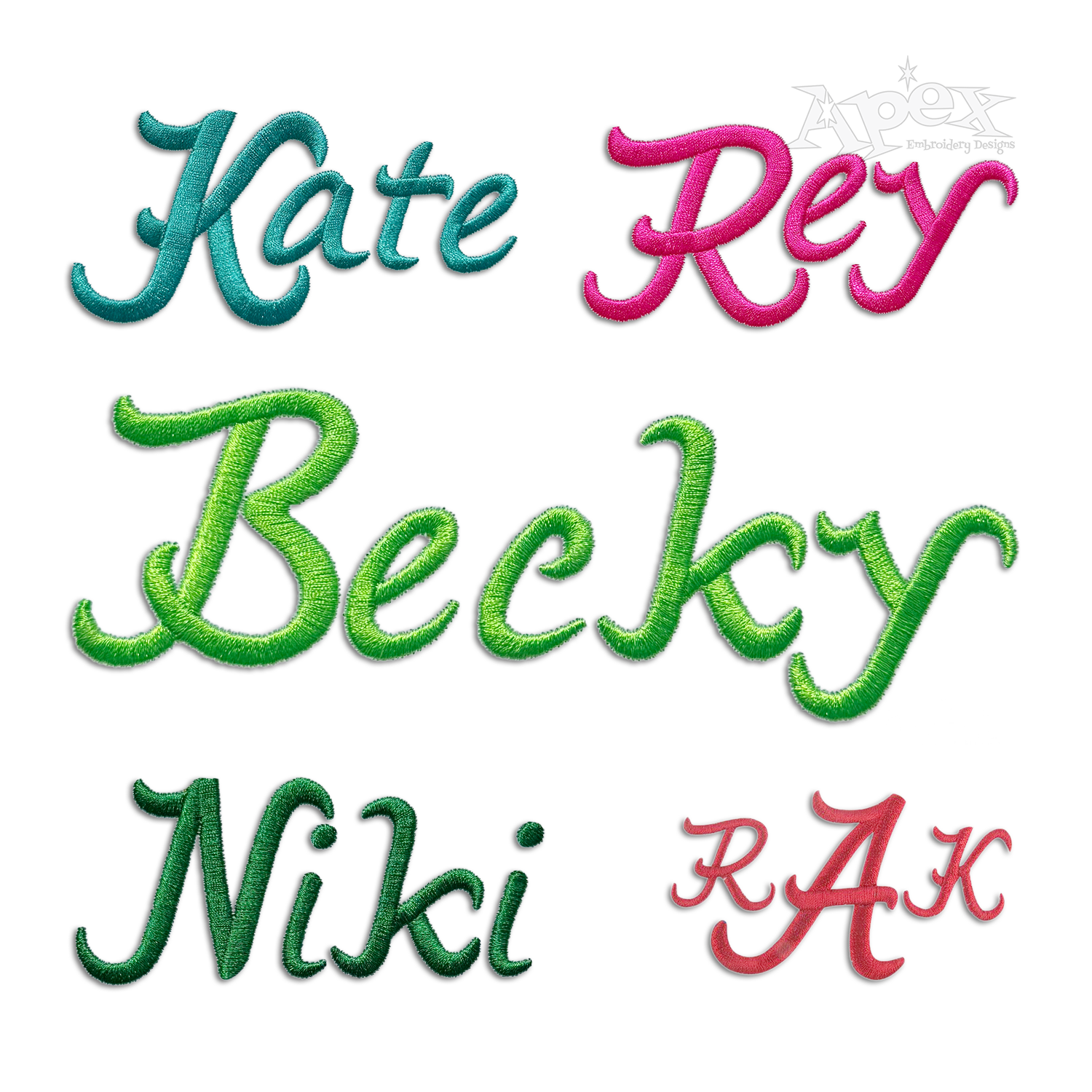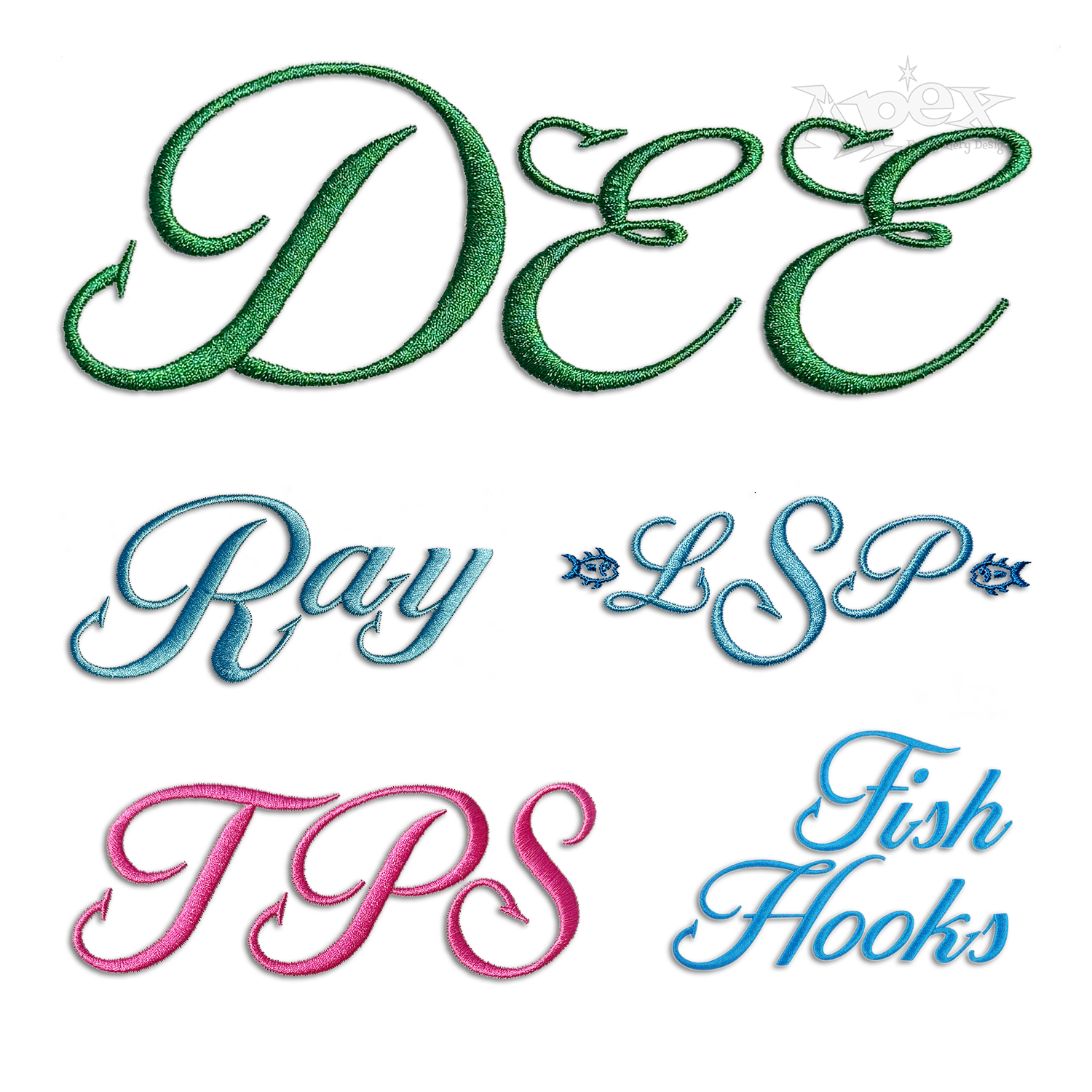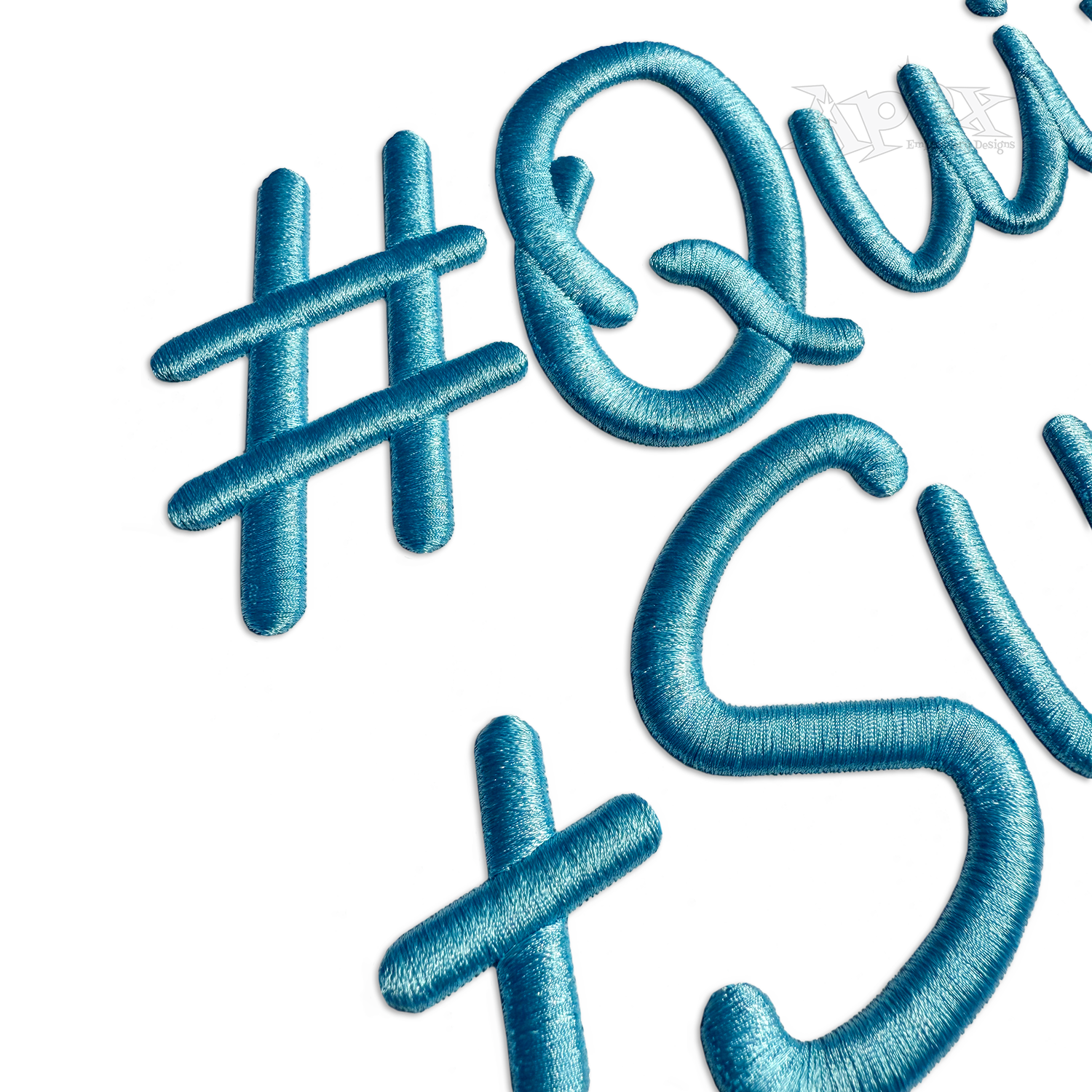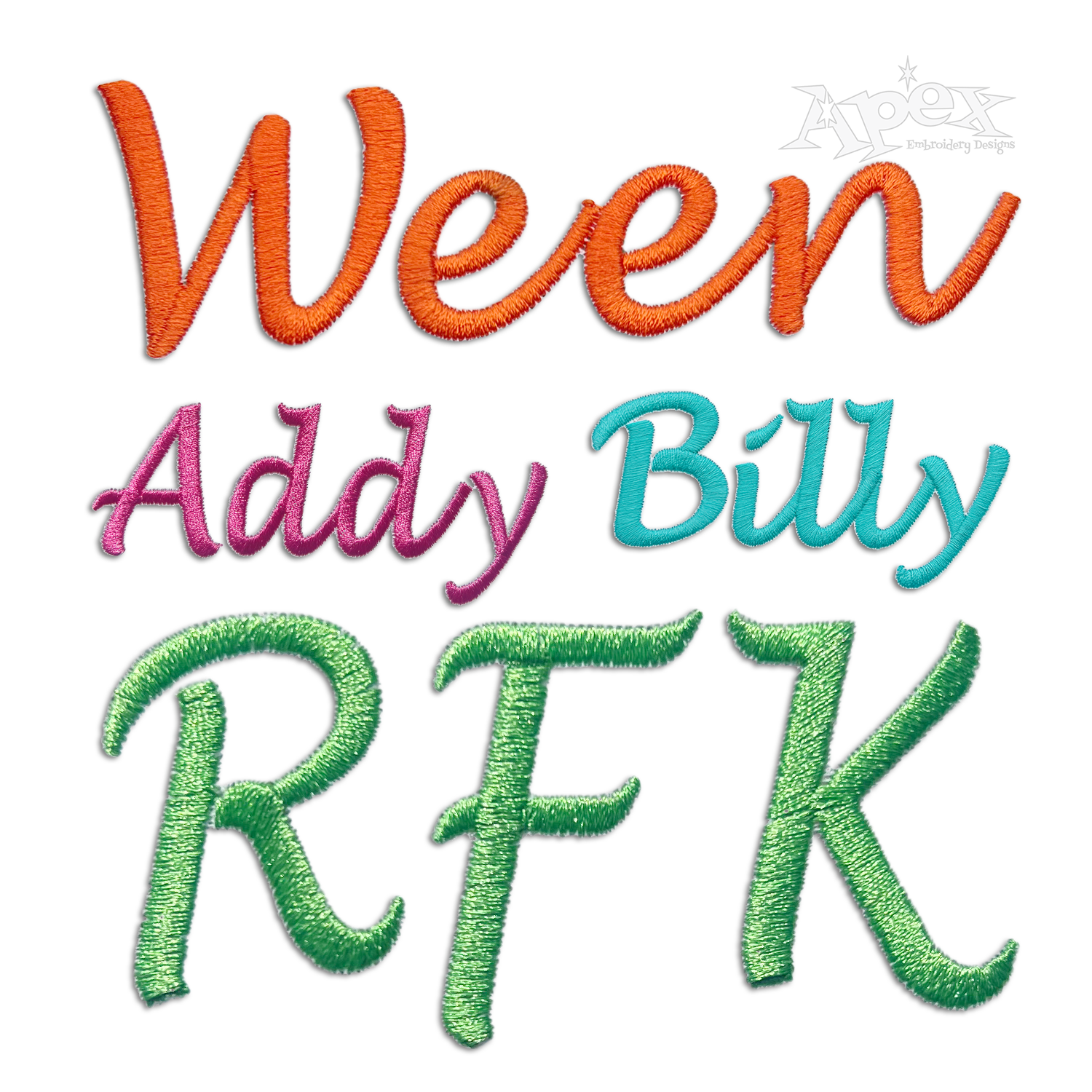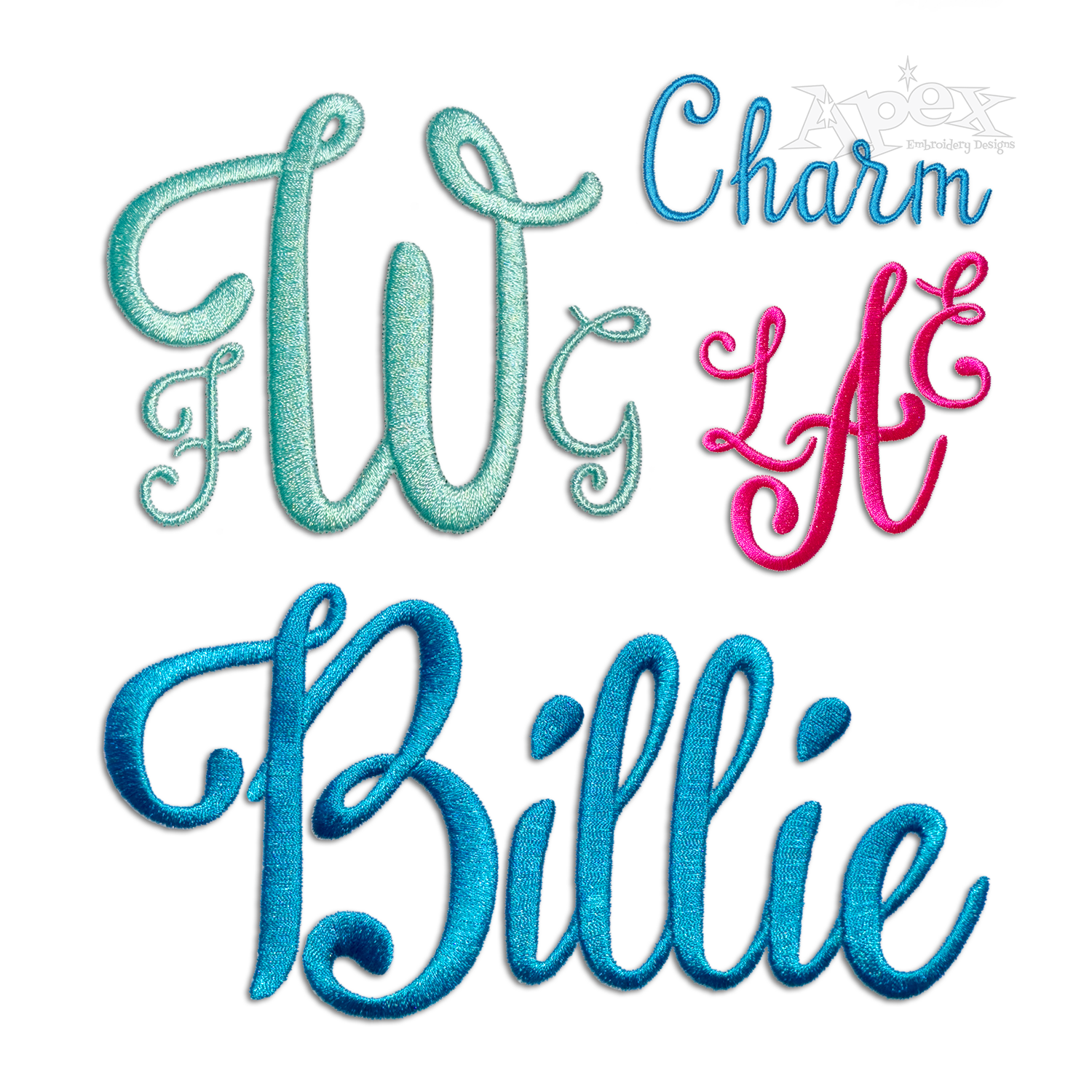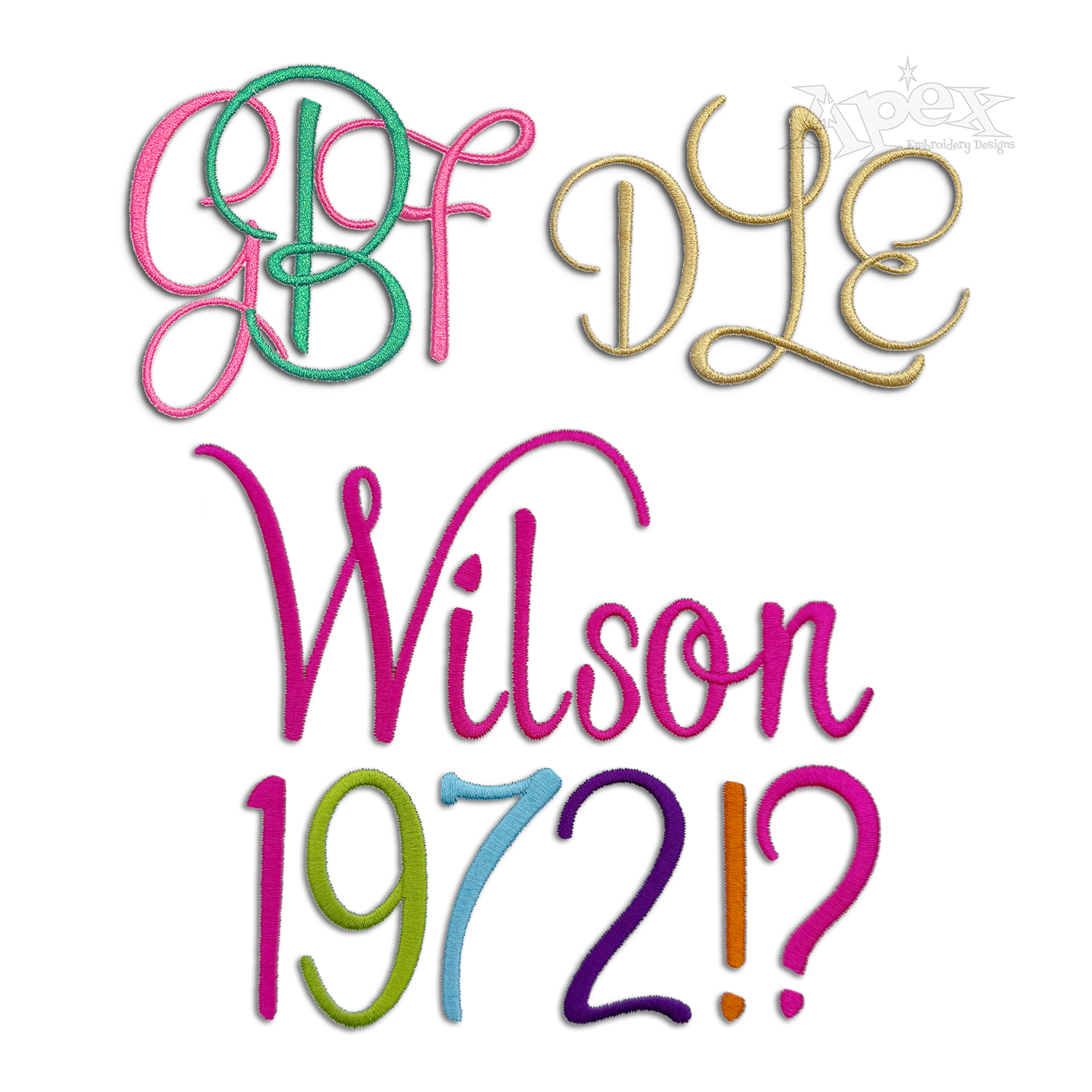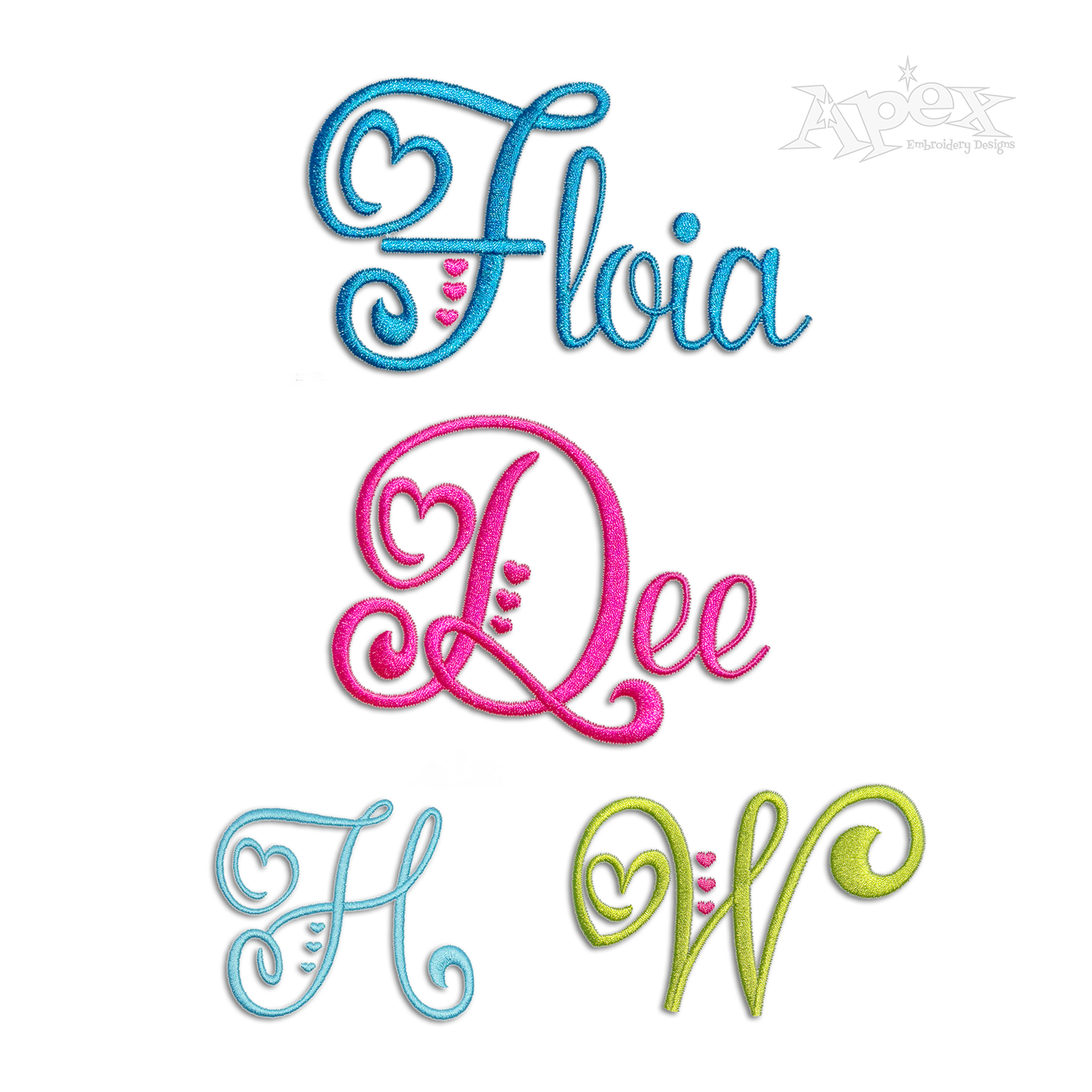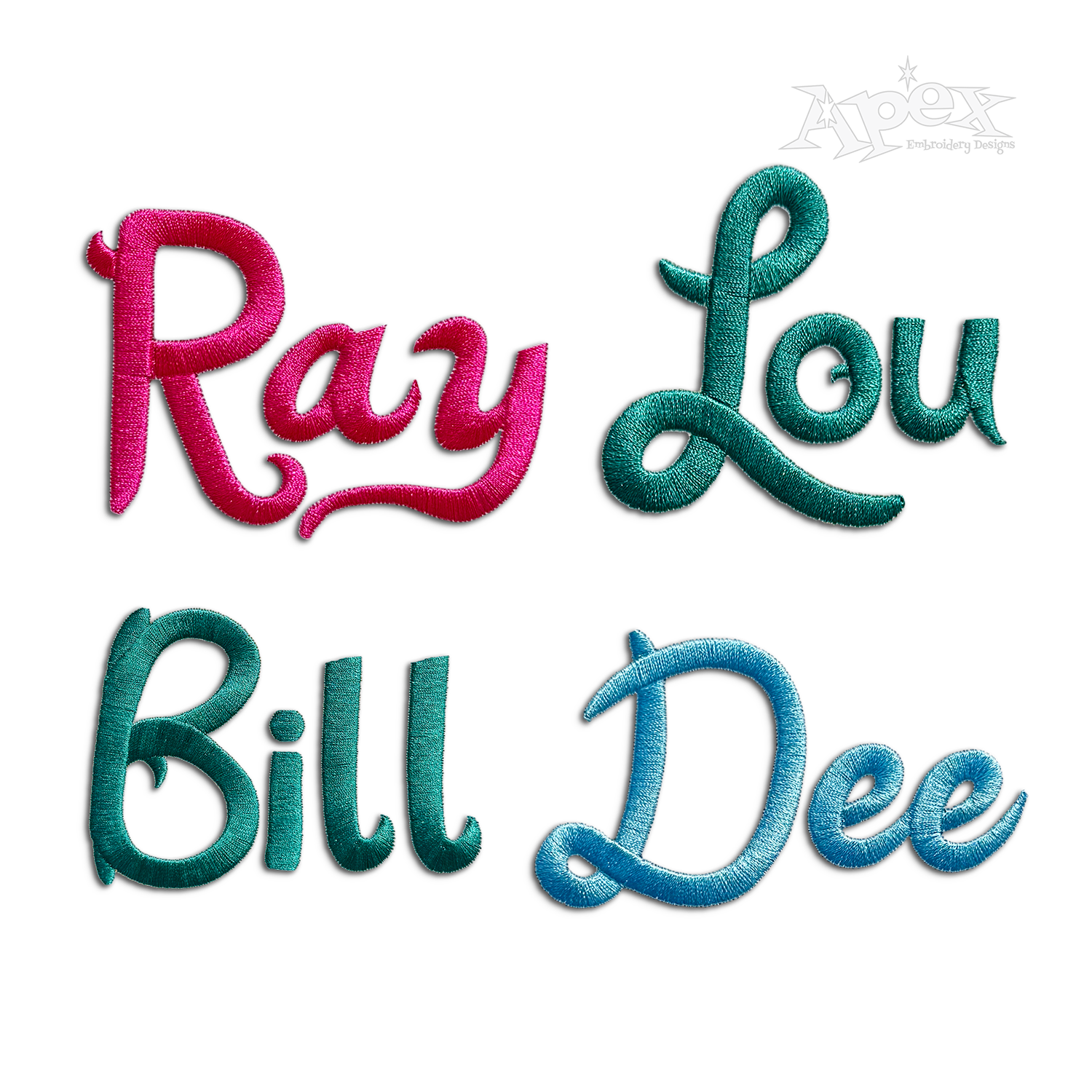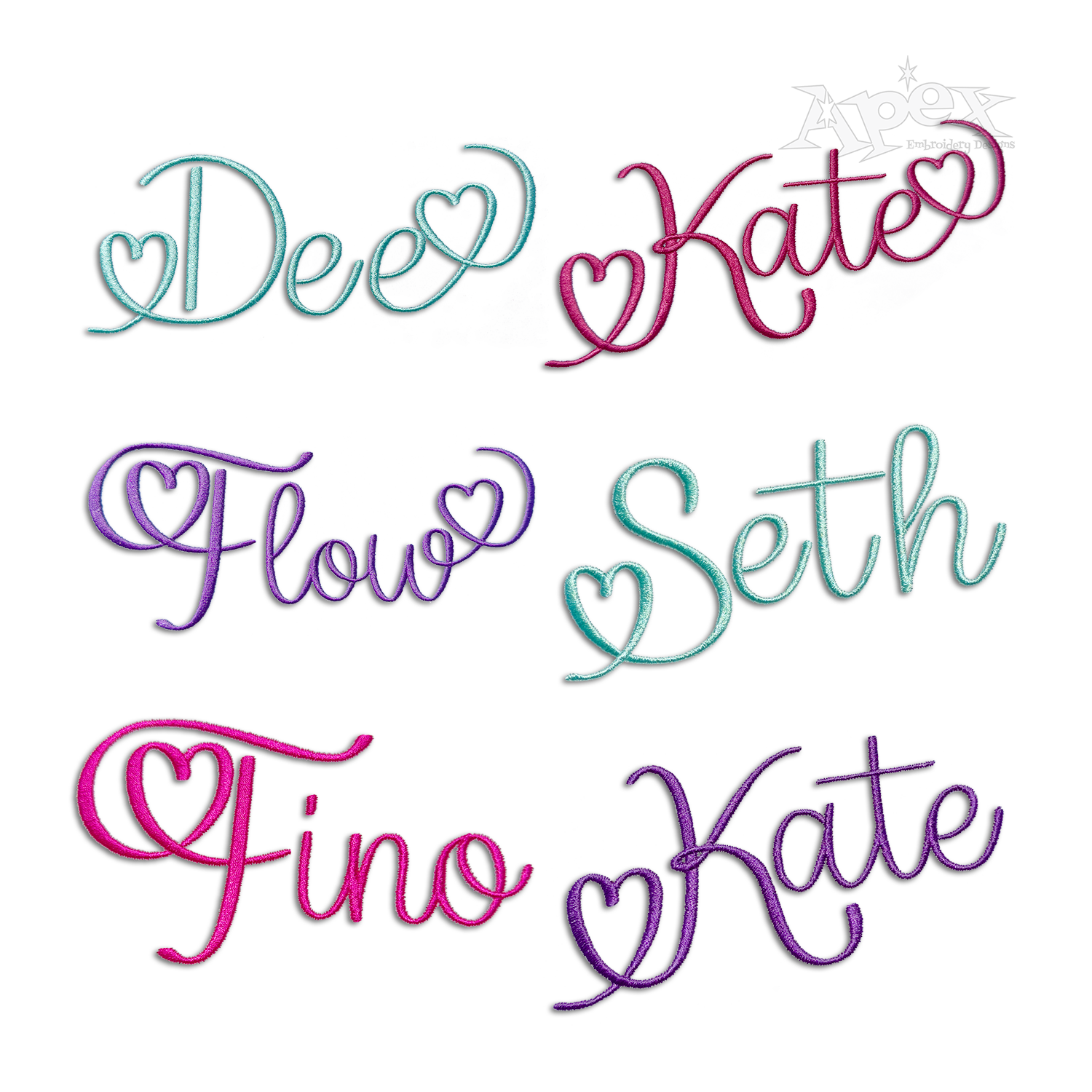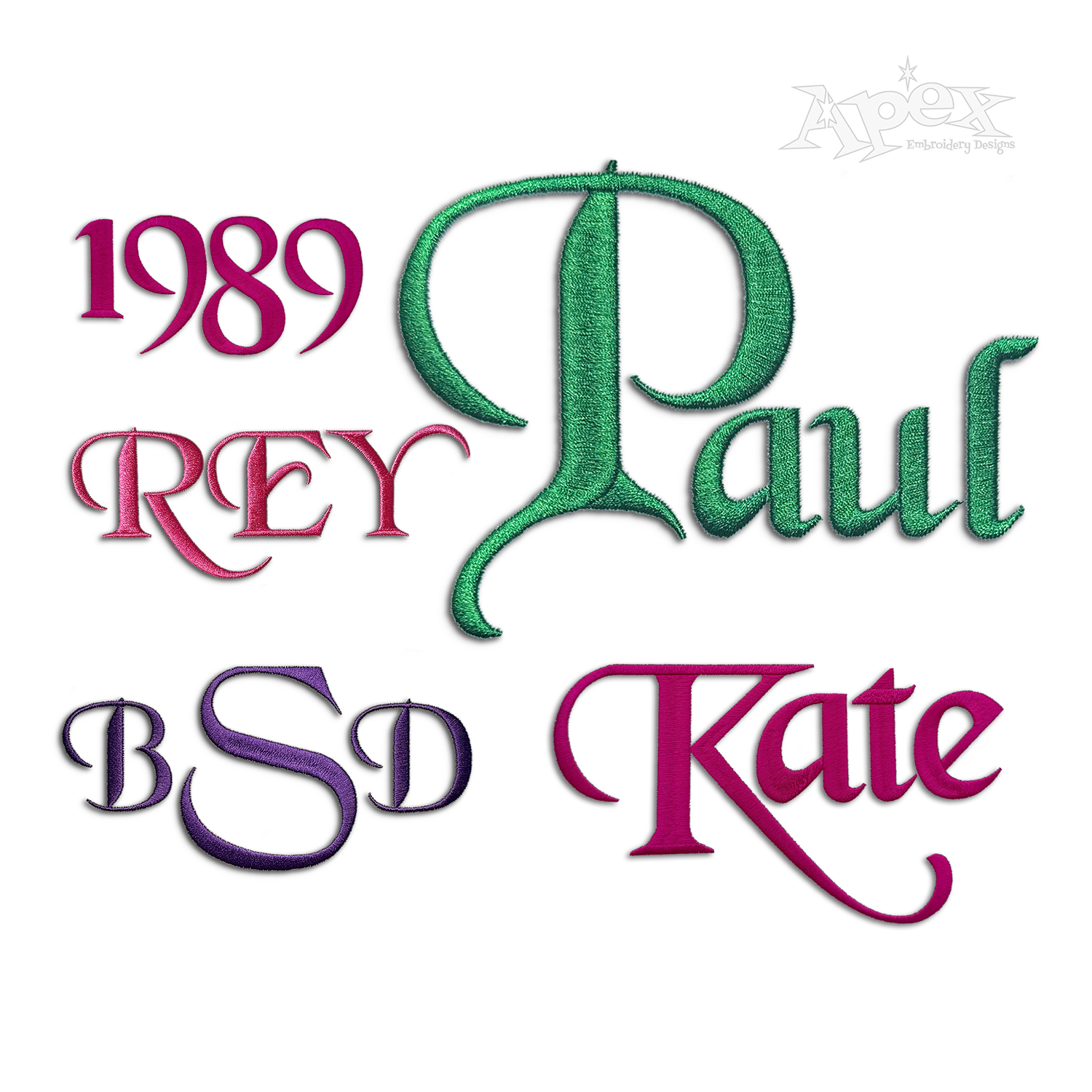
Script embroidery fonts use flowing, connected letters, the kind of lettering people look for when they search for cursive embroidery fonts. They suit names, monograms and personalized gifts, where a handwritten look fits better than block letters. This Apex collection includes everyday script alphabets, heart scripts, a holiday script, script bundles with 3D puff, chain and bean stitch versions, and a running-stitch bundle.
A script embroidery font is a set of letters digitized in a cursive or handwriting style, so each letter flows into the next. Check the product page to see which letters and numbers a set includes. The Wilson Script font, for example, includes all letters A-Z in upper and lowercase plus the numbers 0-9, and so do the Cassiel, Capella, Darlene, Molly and Cassie bundles.
Script lettering is made of connected strokes, so size matters. Recommended minimum sizes differ between fonts, and a cursive font can need more height than a block font. Embrilliance lists 16 mm for its Bold Cursive and 5 mm for its Block font, for instance. Always check the sizes listed on the product page.
The Candice Heart Script and the Valentine Script 3D Puff Embroidery Font are designed for Valentine's Day initials, wedding names, love monograms and gifts. Candice lists sizes from 2" to 3.5" plus 2 embellishments. The 3D puff version comes in 2", 3" and 4" heights and is stitched over foam. Its page notes that the heart designs are not included in BX, so import the heart and embellishment curves from PES, DST, EXP or another machine format.
These bundles give you the same script in several stitch styles, so you can match the style to the project.
The 3D puff versions are stitched over foam made for puff embroidery. The product pages suggest these bundles for bath towels, monogrammed linens, baby shower gifts, pillows, tote bags and wedding gifts.
The Running Stitch Embroidery Fonts Bundle collects 8 lightweight running-stitch fonts in one download. It includes a fast script (2.5" to 5"), a cursive quick script with full A-Z and numbers (4", 6" and 8"), a kids' font, a narrow triple-run style, a triple-run block alphabet, an outline bean run stitch alphabet and a baby 2-color sketch bean stitch. The Bean Stitch Embroidery Fonts Bundle has eight sets of its own, including Emily Lime Bean, described as a petite handwriting script, in 1", 2" and 3".
Many do, but not all. Check the product page of each font. Wilson Script, Cassiel and Cassie, for example, include upper and lowercase letters and the numbers 0-9.
It depends on the font. Wilson Script includes a 0.5" size, while Christmas Stocking Script starts at 1.5". Minimum sizes differ by font, so test first.
Yes, with the bundles that include a 3D puff version, such as Cassiel, Capella, Darlene, Molly and Cassie. Puff versions are stitched over foam and should not be stitched without it.
A script font gives names and gifts a handwritten feel. Check the sizes first, test on a scrap of your fabric, and pick the style that suits the item you are making.